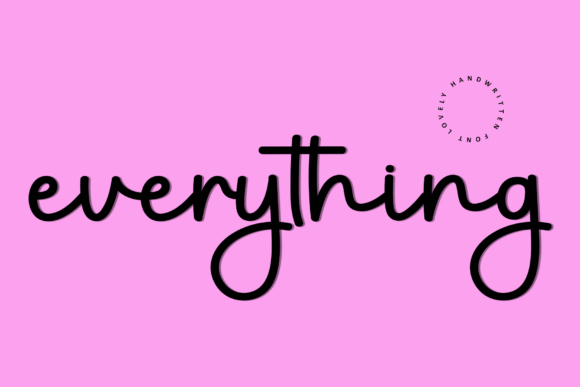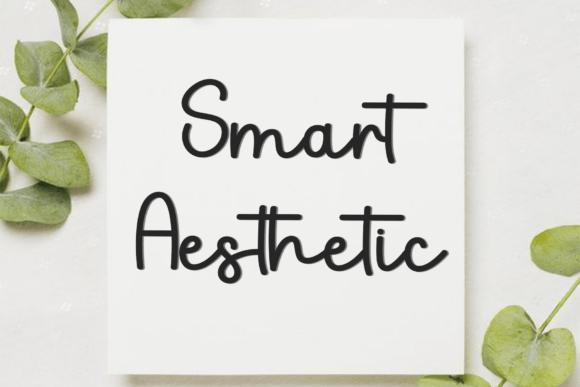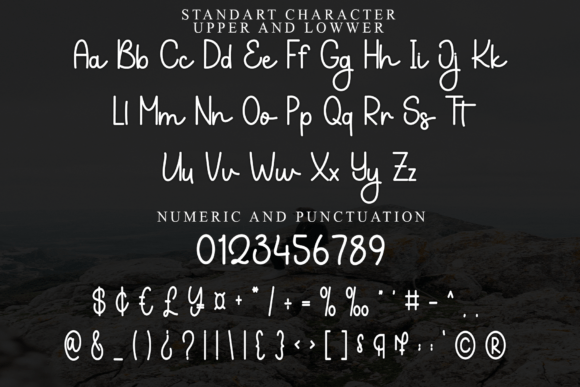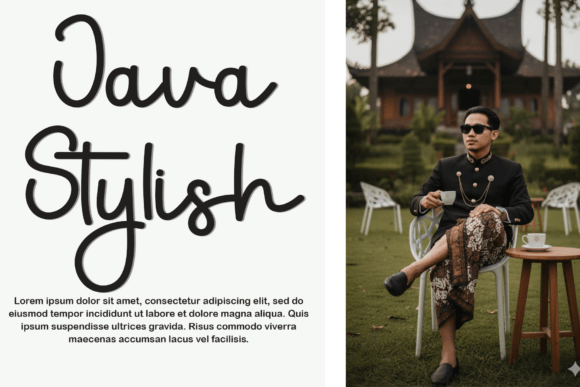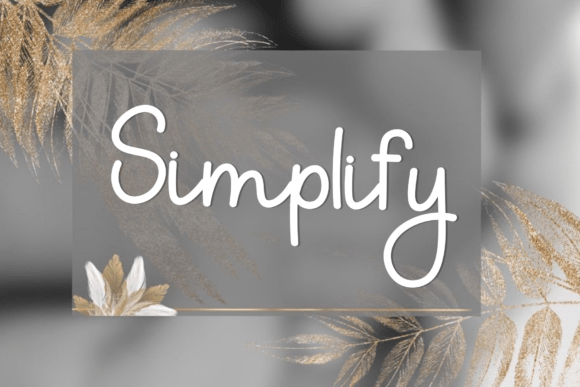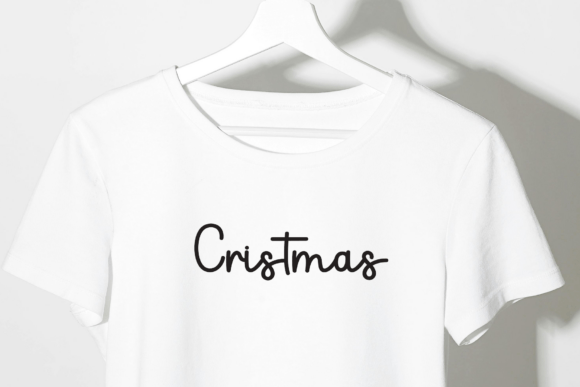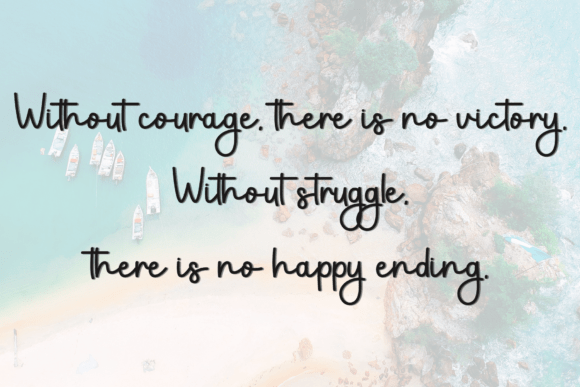
The Magic of the Holiday Season in Type
As I sat at my desk, surrounded by twinkling lights and festive decorations, I knew it was time to bring the holiday spirit to life with my designs. I reached for the perfect font – one that would capture the whimsy and wonder of the season. And then, I found it: the Everything Font, a charming and enchanting typeface that embodies the essence of the holiday season.
With its ornate details and playful flair, the Everything Font is the perfect addition to any holiday-themed project. Whether you’re creating greeting cards, gift tags, or social media graphics, this font brings a touch of magic to your words. Its PUA encoding makes it easy to access all the amazing glyphs and ligatures, ensuring your typography shines with the same sparkle as the holiday lights.
Everything Font Key Features
Everything Font Review
As a designer, I was excited to dive into the world of the “Everything Font”. At first glance, I was impressed by its versatility and the sheer number of languages it supports. ✨ This is no small feat, and the font’s ability to cater to a global audience is certainly a plus.
However, upon closer inspection, I noticed a few limitations. ⚠️ The font’s aesthetics can be a bit too uniform, making it difficult to create contrast and visual interest. Additionally, the font’s lines can feel a bit too smooth, lacking the subtle imperfections that make a font truly unique. The weight range, while extensive, can also feel a bit too uniform, with some weights feeling more like variations of others.
Here are some specific areas where I feel the font falls short:
- Lack of contrast between weights, making it difficult to create visual hierarchy
- Smooth lines can make the font feel less unique and interesting
- Weight range can feel too uniform, with some weights feeling like variations of others
Overall, I feel that the “Everything Font” has potential, but falls short in terms of visual interest and uniqueness. While it’s certainly a solid choice for global audiences, I wouldn’t recommend it for projects that require a bit more flair and personality.
Getting the Most Out of the Everything Font
The Everything Font is a versatile font that can be used for a variety of purposes. To get the most out of it, try experimenting with different font sizes, colors, and styles. You can also use it in combination with other fonts to create a unique and eye-catching design.
The Everything Font is commonly used for:
- Displaying large amounts of text, such as in infographics or presentations.
- Creating a playful and informal tone in designs.
- Adding a touch of whimsy to designs.
Q: Can I customize the Everything Font for my specific project?
Yes, the Everything Font is highly customizable. You can adjust font weights, styles, and sizes to suit your design needs. Additionally, the font supports advanced typographic features, such as ligatures and swashes, which can be used to add visual interest and flair to your design.